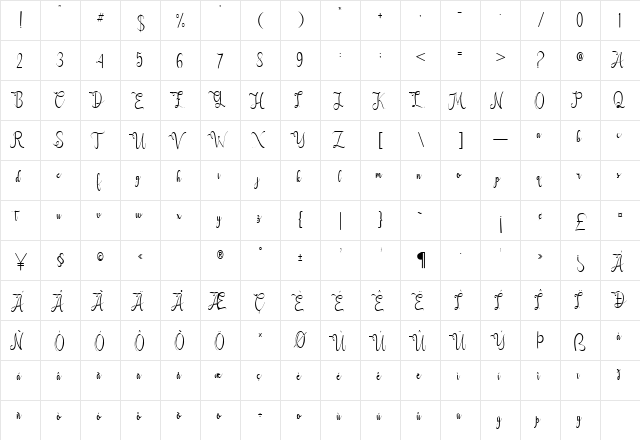
Laughs Qhuan Regular Font Preview
Laughs Qhuan Regular
Laughs Qhuan Regular Font Details
| Foundry | Namara Creative Studio |
| Designer | Eep Apringga | Namara Creative Studio |
Design Context for Laughs Qhuan Typeface
Laughs Qhuan is a composed and adaptable typeface that performs quietly and consistently across a wide range of design contexts.